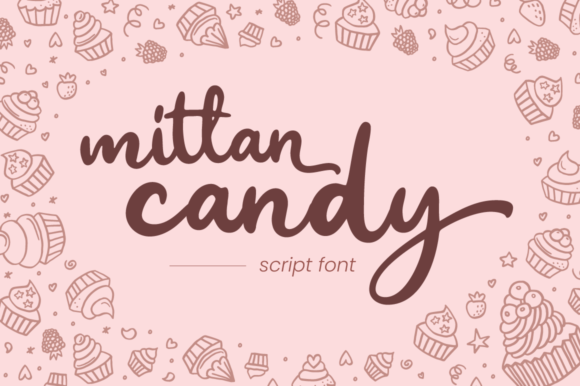
Welcome to the realm of elegance and charm, where Mittan Candy Font, a captivating script font, flourishes as the epitome of captivating design. Created by the esteemed attypestudio, this font is a masterpiece that combines aesthetics and functionality, transcending the boundaries of ordinary typography.
Mittan Candy is not merely a font; it is an artistic journey that invites you to explore new horizons of creativity. Its graceful strokes and delicate curves evoke a symphony of emotions, adding a touch of refinement to your designs. Every letter is meticulously crafted to exude elegance, ensuring your creations never go unnoticed.
This font is an ideal companion for graphic designers seeking to elevate their work beyond the mundane. Its timeless appeal makes it suitable for a wide range of projects, be it logos, branding, invitations, or website designs. Let Mittan Candy Font be your gateway to a world of enchantment, capturing hearts with its timeless beauty.
Imagine the impact of your designs when infused with the charm of Mittan Candy Font. Your logos will radiate an aura of luxury, attracting customers like moths to a flame. Your branding materials will exude a sense of sophistication, leaving a lasting impression that sets you apart from the competition. Invitations adorned with this font will captivate recipients, heightening anticipation for the event. Websites adorned with Mittan Candy Font will allure visitors with their visual appeal, encouraging them to explore and engage.
But Mittan Candy Font is more than just visually stunning; it is also incredibly versatile. Its ability to adapt seamlessly to various design styles makes it a valuable asset in any graphic designer's arsenal. Whether you favor a minimalist aesthetic or a more ornate approach, this font will effortlessly complement your vision. Its adaptability extends beyond design genres, allowing you to experiment with different color palettes and backgrounds, creating endless possibilities for expression.
So, embark on a creative adventure with Mittan Candy Font as your trusted companion. Allow its enchanting curves to elevate your designs to new heights, leaving a trail of elegance and intrigue wherever you go. Experience the joy of creating masterpieces that speak to the heart and captivate the senses. Embrace the endless possibilities of this remarkable font and unlock the true potential of your artistic vision.